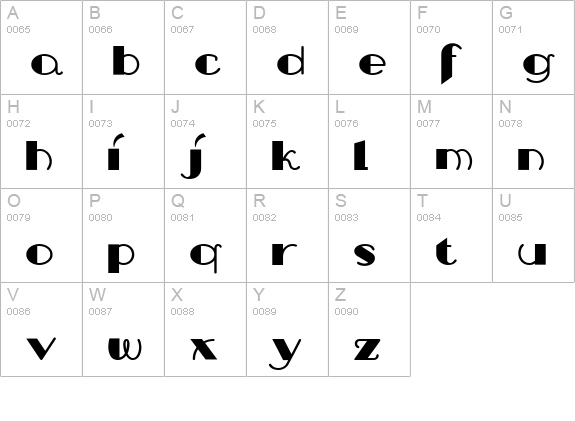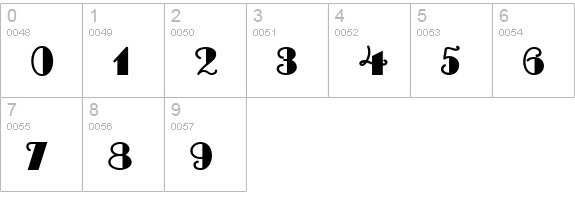
Nip And Tuck NF Font Details
Nip And Tuck NF is a stylish and modern font that combines elements of both fun and sophistication. Its sleek lines and unique curves make it perfect for a wide range of design projects, from branding to packaging to social media graphics. This versatile font exudes a sense of creativity and originality, making it a great choice for anyone looking to make a statement with their typography. The best part? Nip And Tuck NF is available for free download at FontsMarket.com. This means that you can easily access this stunning font and incorporate it into your designs without any cost. Whether you're a seasoned designer or just starting out, Nip And Tuck NF is a fantastic addition to your font collection. Download it today and let your creativity soar with this beautiful and free font.